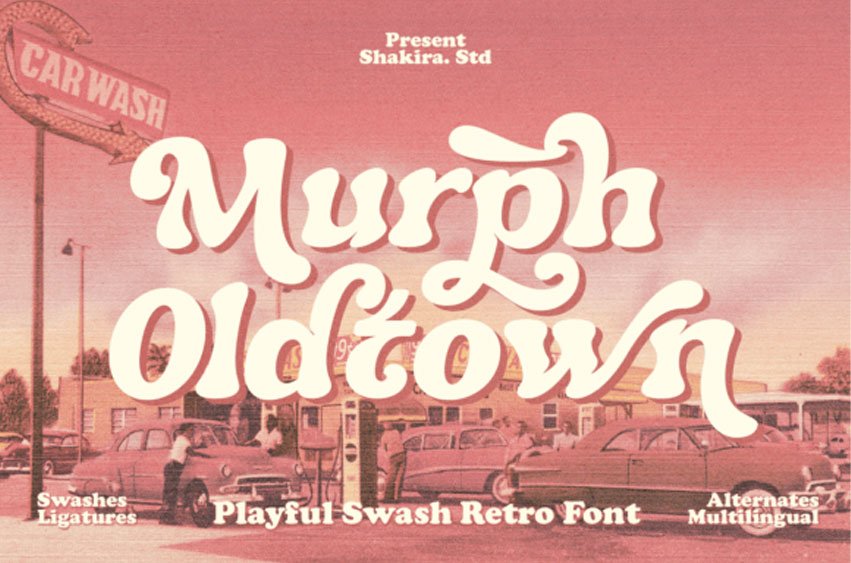
Murph Oldtown Font isn’t just a serif font; it’s a bold statement of modernity and nostalgia, meticulously crafted to redefine retro typography.
With its thick strokes and vintage-inspired display, Murph Oldtown perfectly embodies the essence of serif fonts and typography trends.